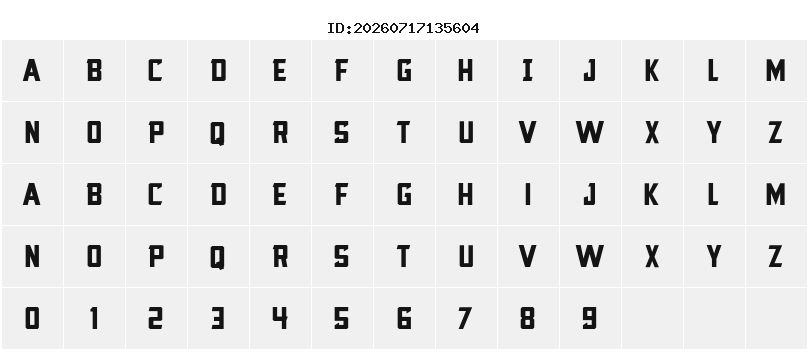
Blocktastic Preview
• Font Name: Blocktastic
• Full Font Name: Blocktastic
• Designer: Jason L. Arthur
About Blocktastic.otf
Blocktastic.otf is a modern, elegant sans-serif font designed for ultimate readability and visual harmony. Perfect for branding, headlines, web design, and print materials.